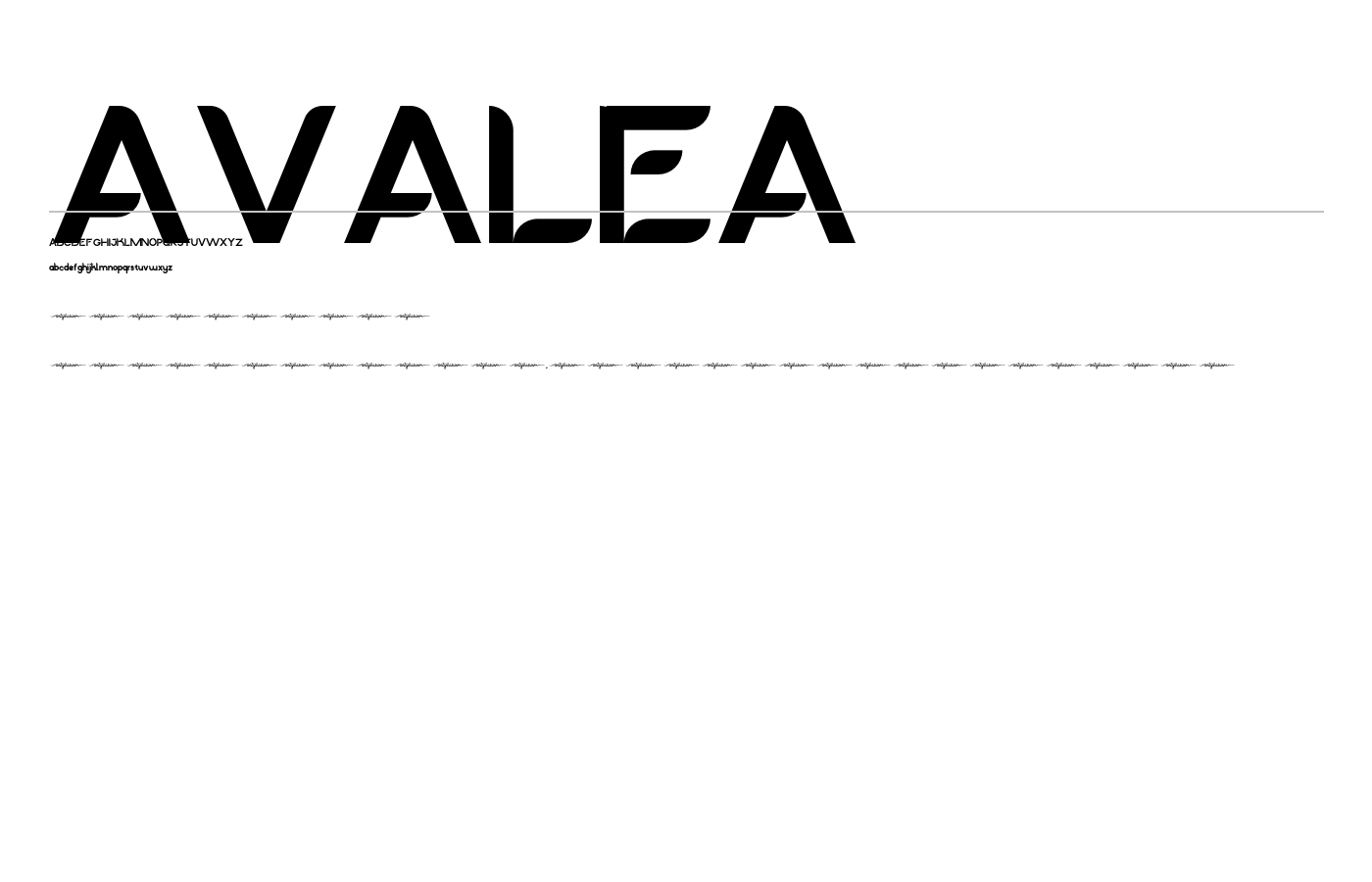
AVALEA is a bold and modern sans serif font featuring clean, geometric lines with strong, angular shapes and low contrast strokes. Its wide letterforms and unique cuts, especially in characters like E and A, give it a distinctive, futuristic look that works well for impactful logos, headlines, and contemporary branding. This font conveys a sense of strength and innovation, making it ideal for tech, fashion, or creative industries seeking a sleek, confident style.
AVALEA Font
About AVALEA Font